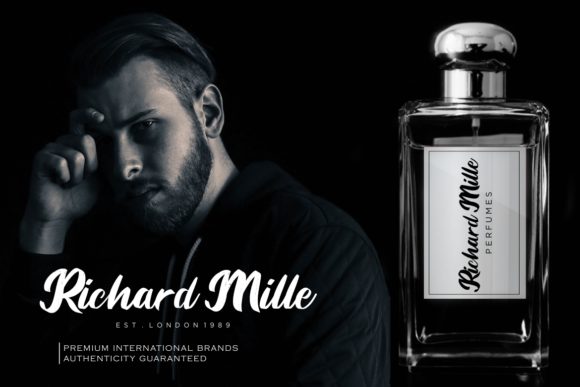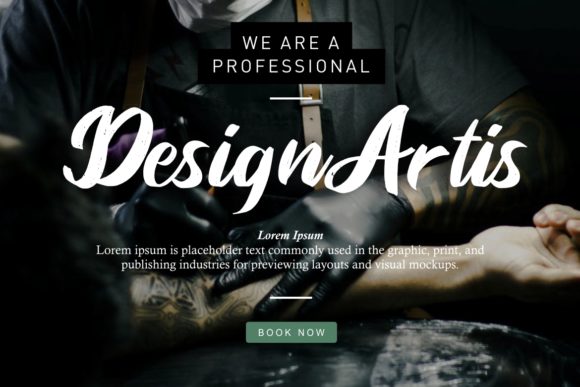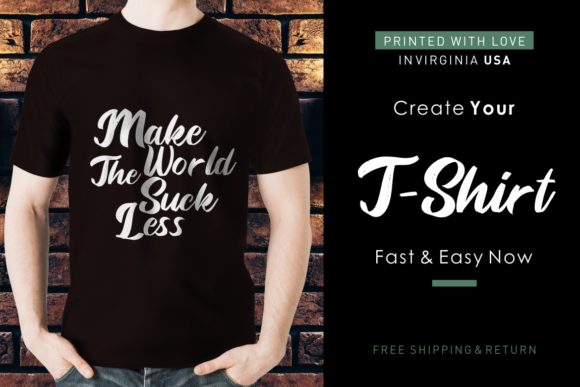
Introduction to Rastynd Font
As a designer, have you ever found yourself stuck in a creative rut, searching for the perfect font to elevate your project? Maybe you’re working on a campaign for a new outdoor gear brand, and you need a font that screams adventure and freedom. Or perhaps you’re creating a brochure for a national park, and you want a font that captures the essence of the great outdoors.
Enter the Rastynd Font, a bold and modern script font that’s sure to take your design project to the next level. With its high-quality design and transparent background, this font is a game-changer for any creative project. And the best part? It’s available for free download, making it an invaluable resource for designers on a budget.
Key Features of Rastynd Font
- Rastynd Font is a high-quality design resource perfect for creative projects requiring a unique touch.
- Includes a set of stylish and modern glyphs, ideal for use in logos, branding, and typography-based designs.
- Comes with a transparent background, allowing for seamless integration with any design project.
- High-resolution design, suitable for use in print and digital applications.
- Unique, hand-crafted design elements set Rastynd Font apart from other fonts in its class.
Honest Review: Rastynd Font
I recently came across the Rastynd Font and was excited to dive in and see what it had to offer. As a designer, I’m always on the lookout for high quality design resources that can elevate my creative projects.
What works well about the Rastynd Font is its sleek and modern aesthetic. The font is perfect for creating a clean and minimalist look, which is ideal for digital design projects. The font also has a transparent background, which makes it easy to place over any image or background.
Here are some of the key features that I like about the Rastynd Font:
- High quality design
- Perfect for digital design projects
- Transparent background for easy placement
However, I did notice a few limitations with the Rastynd Font. For one, it’s not ideal for printing, as it may not hold up well to physical media. Additionally, the font may not be suitable for projects that require a lot of bold or dramatic typography.
Overall, I think the Rastynd Font is a great addition to any designer’s toolkit, especially for digital projects. With its high quality design and transparent background, it’s perfect for creating clean and minimalist designs. Just be aware of its limitations and use it for the right projects.
The Rastynd Font is a high-quality design resource ideal for creative projects that require a unique and professional touch. It is available for free download, making it an excellent choice for designers and artists on a budget.
The Rastynd Font is ideal for a wide range of creative projects, including logo design, infographics, and presentations. Its unique and professional look makes it an excellent choice for businesses and individuals looking to make a statement.
To get the most out of the Rastynd Font, use it in combination with other design elements, such as images and graphics, to create visually striking designs. Experiment with different font sizes and colors to find the perfect balance for your project.